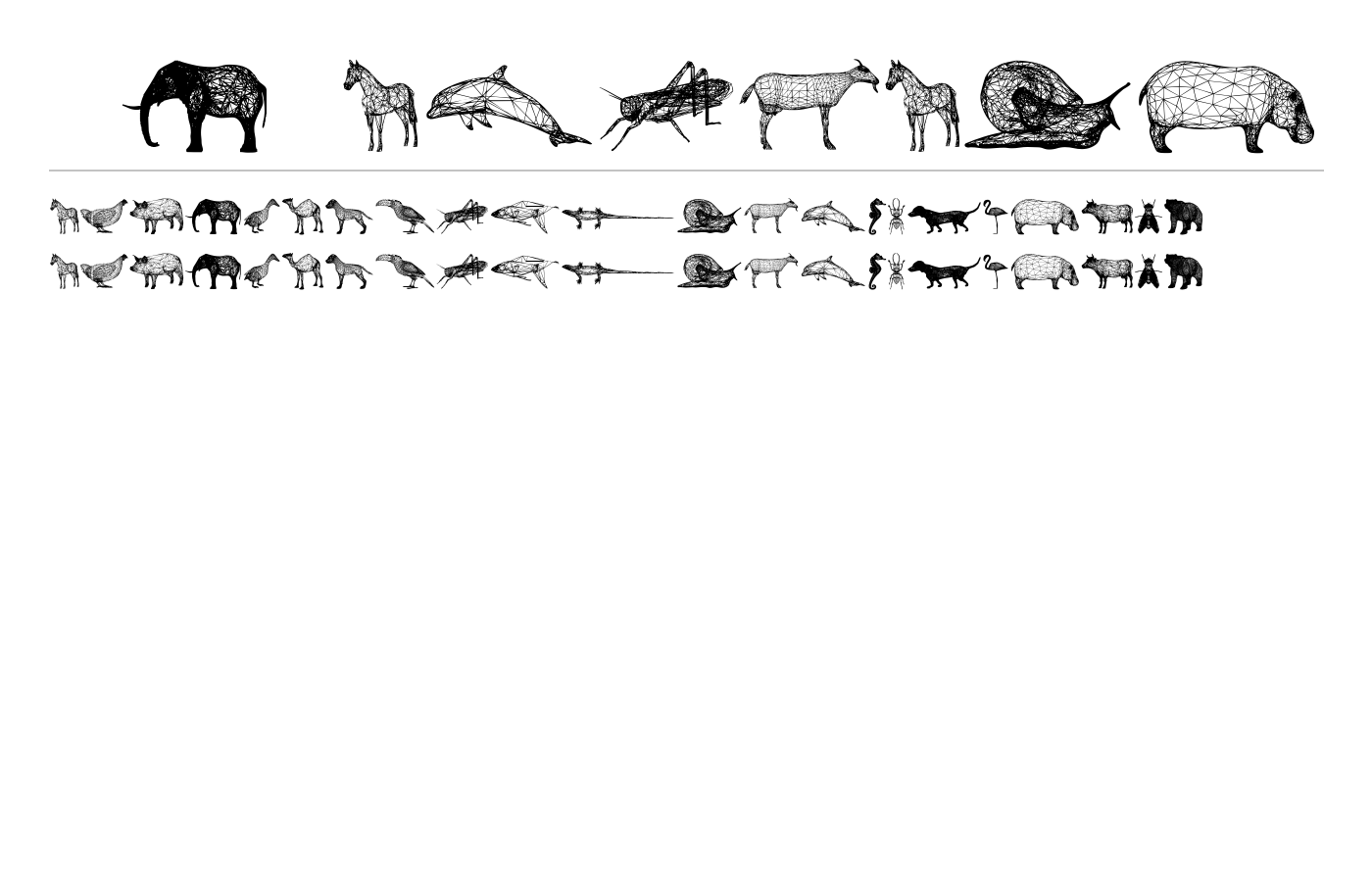
3D Animals Font is a unique decorative font featuring intricate wireframe illustrations of various animals, giving a three-dimensional, geometric appearance. Perfect for creative projects, this font adds a playful and modern touch to designs, making it ideal for logos, posters, educational materials, and nature-themed branding. Its detailed yet stylized forms capture attention and convey a sense of innovation and artistic flair.
3D Animals Font
About 3D Animals Font